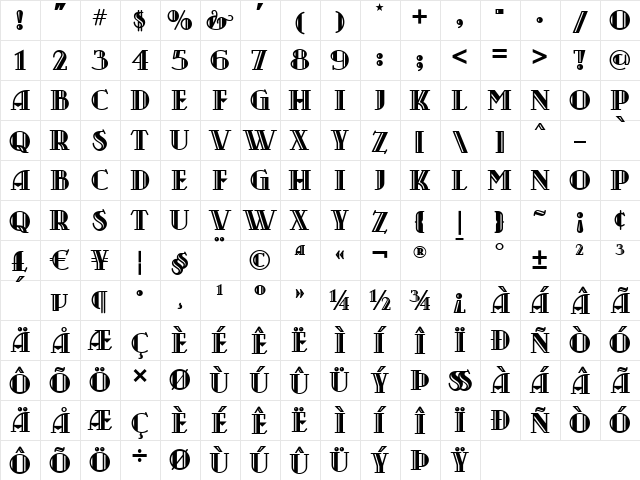
RedStarLineNF Medium
RedStarLineNF is a composed and adaptable typeface that performs quietly and consistently across a wide range of design contexts.